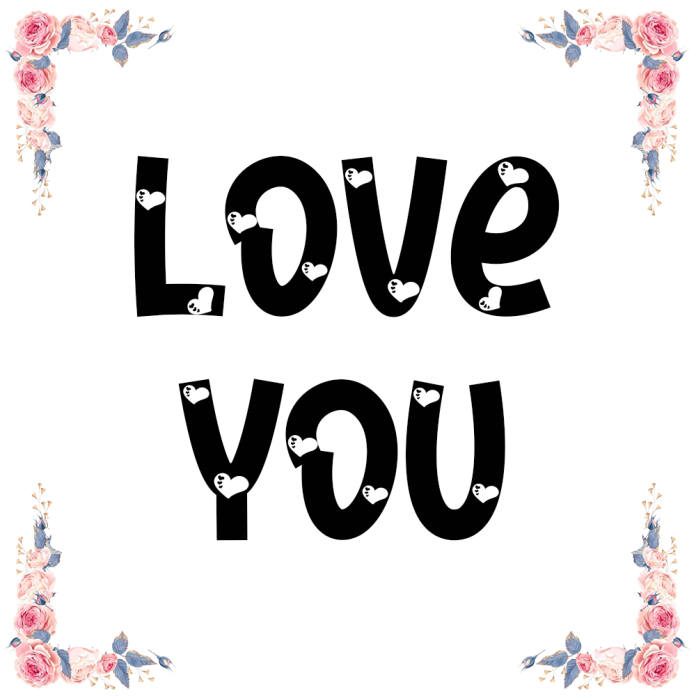
Love You Font is a sweet and friendly handwritten font. Fresh and casual, this font is ideal for writing wedding invitations, cards, or any other design that might need a lovely touch.